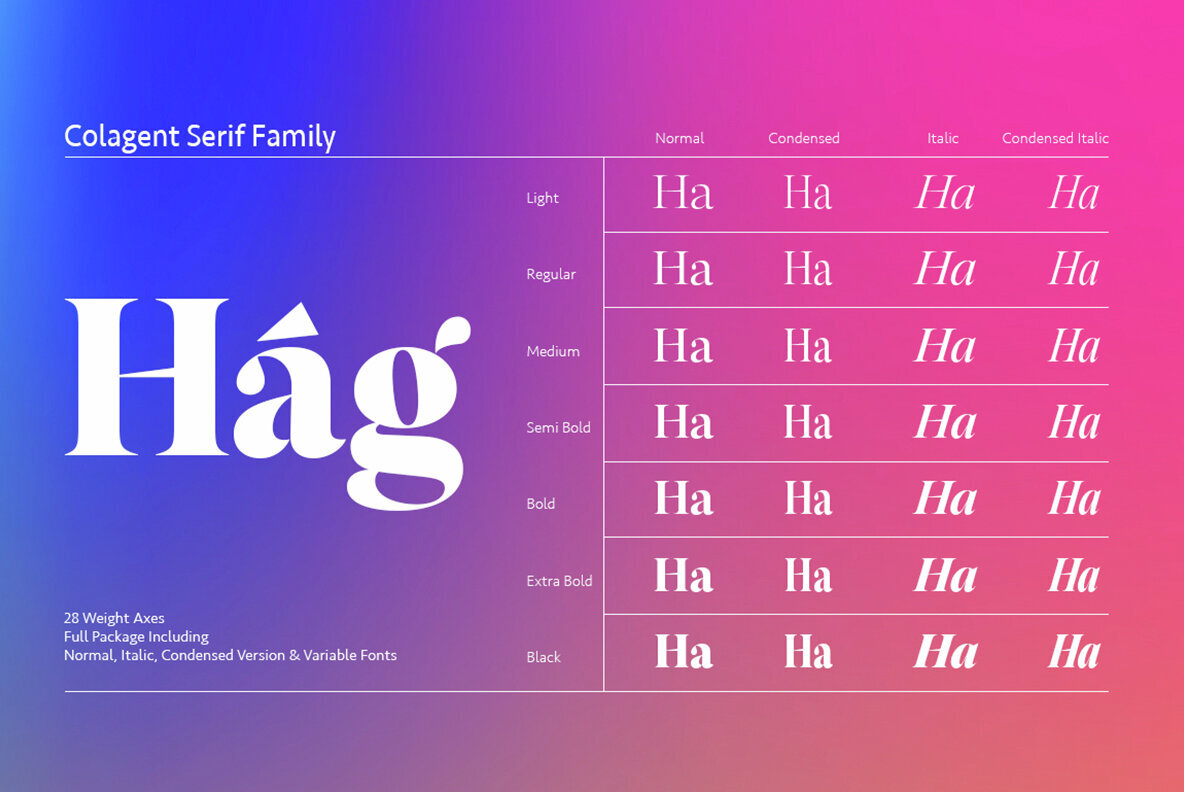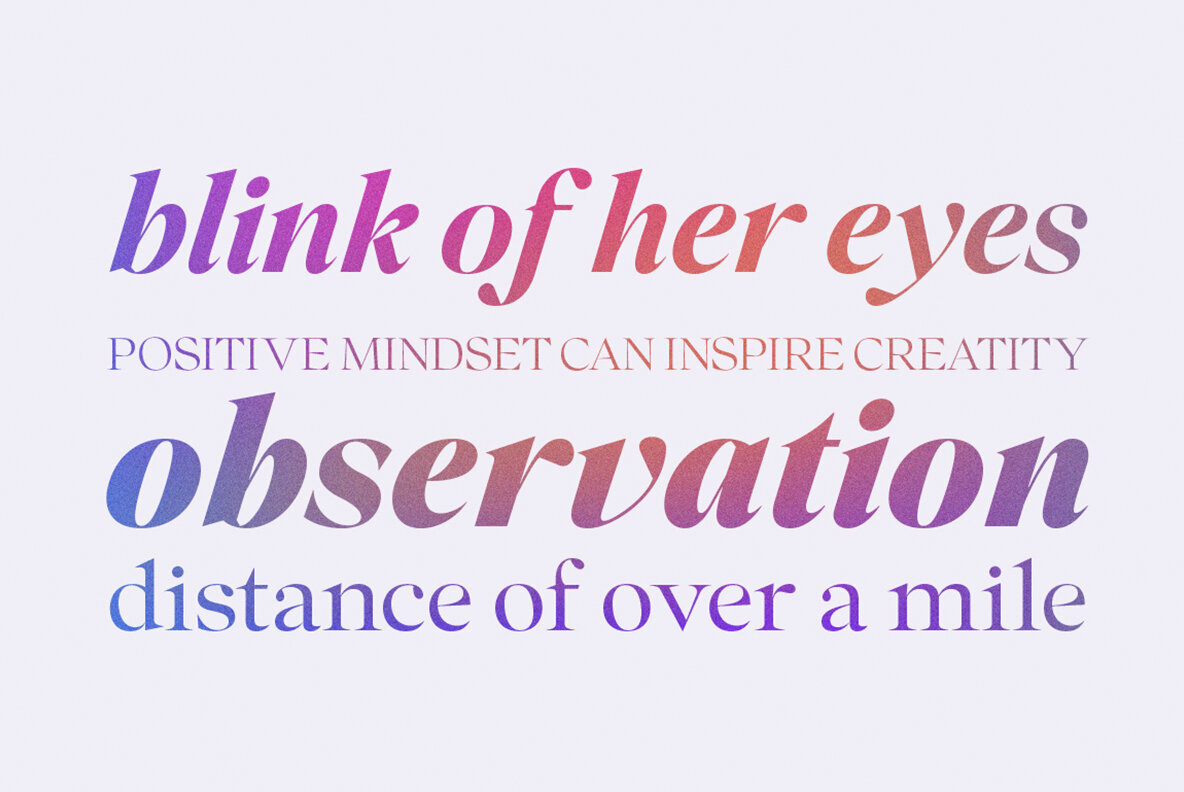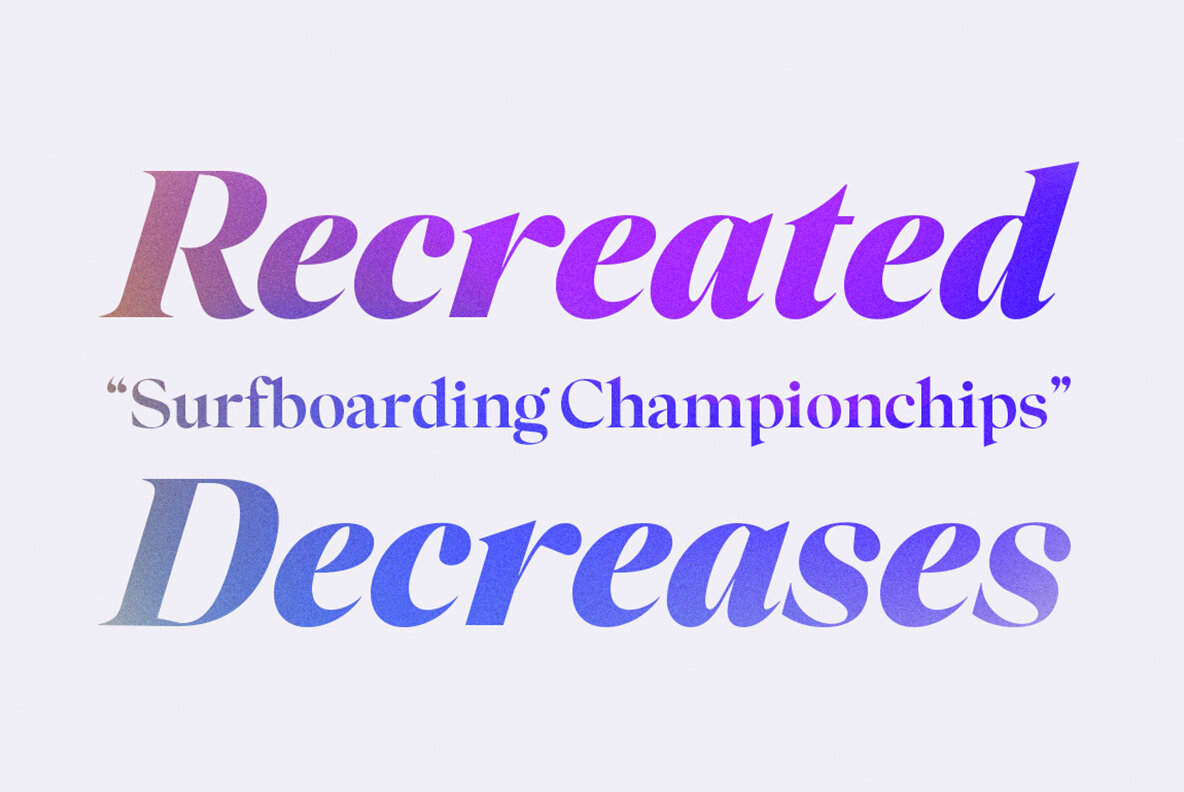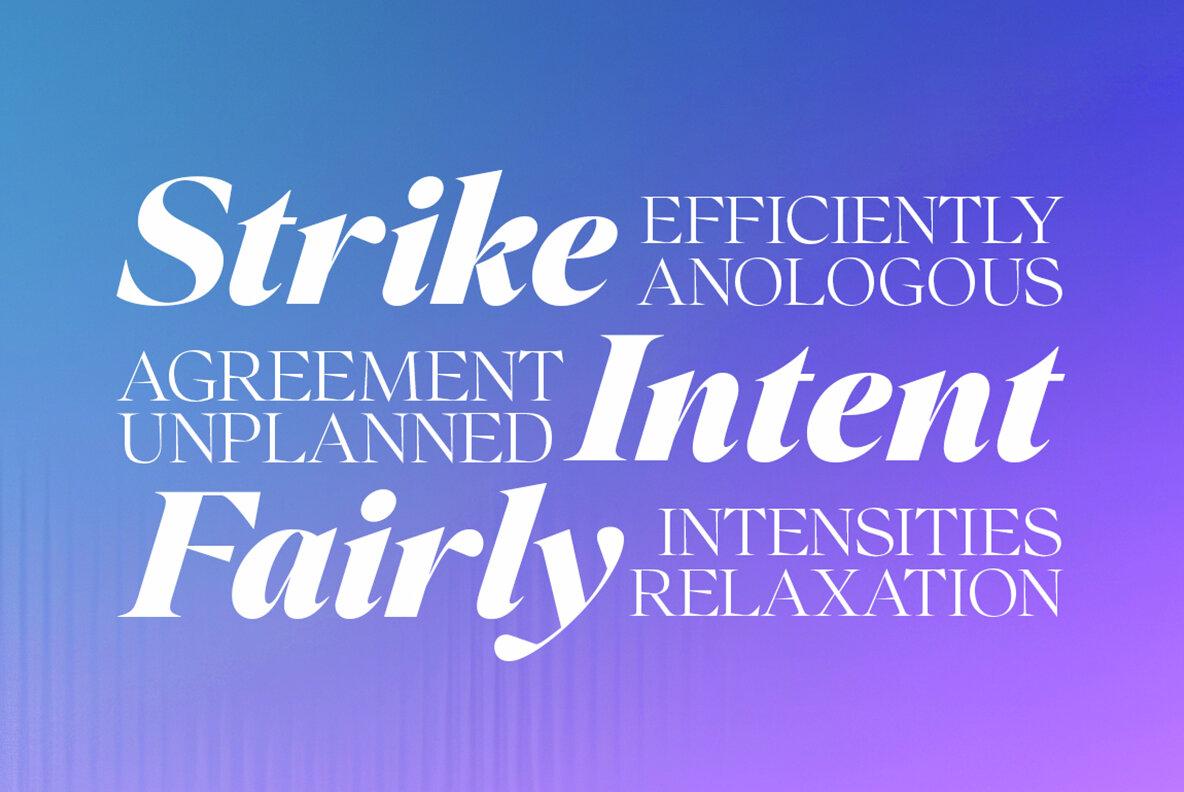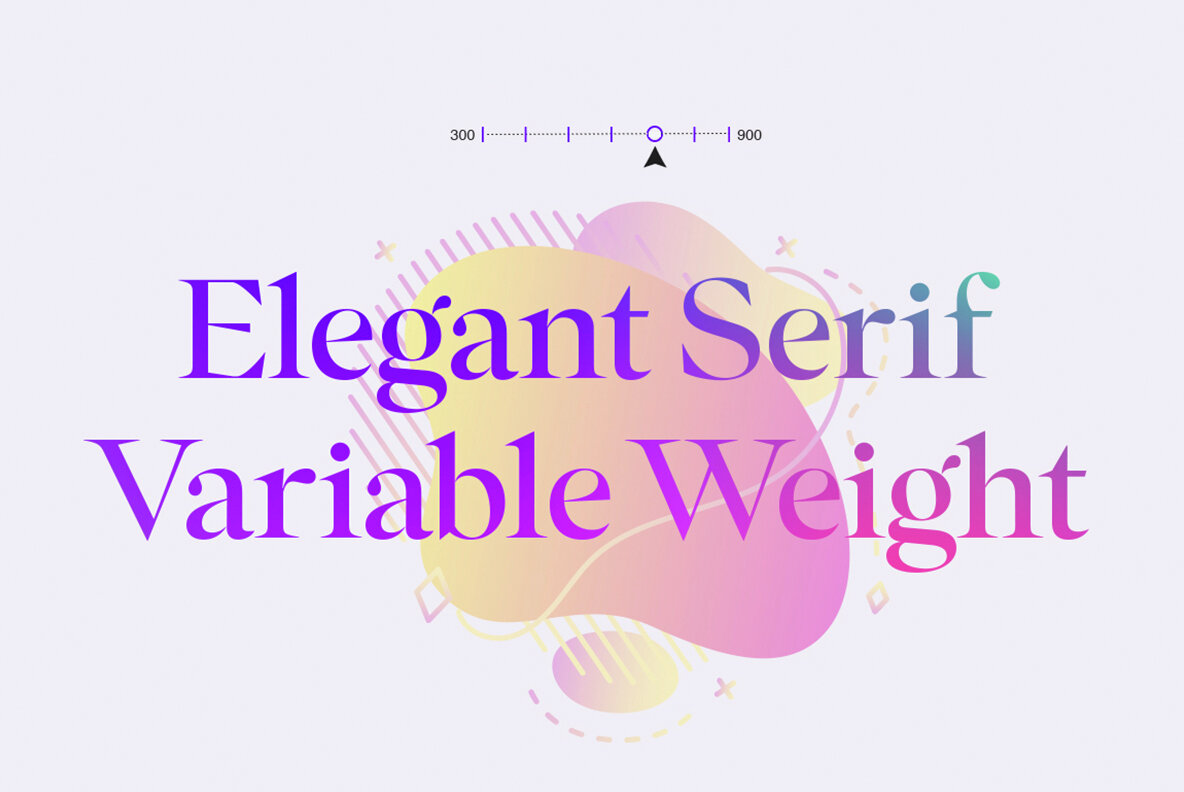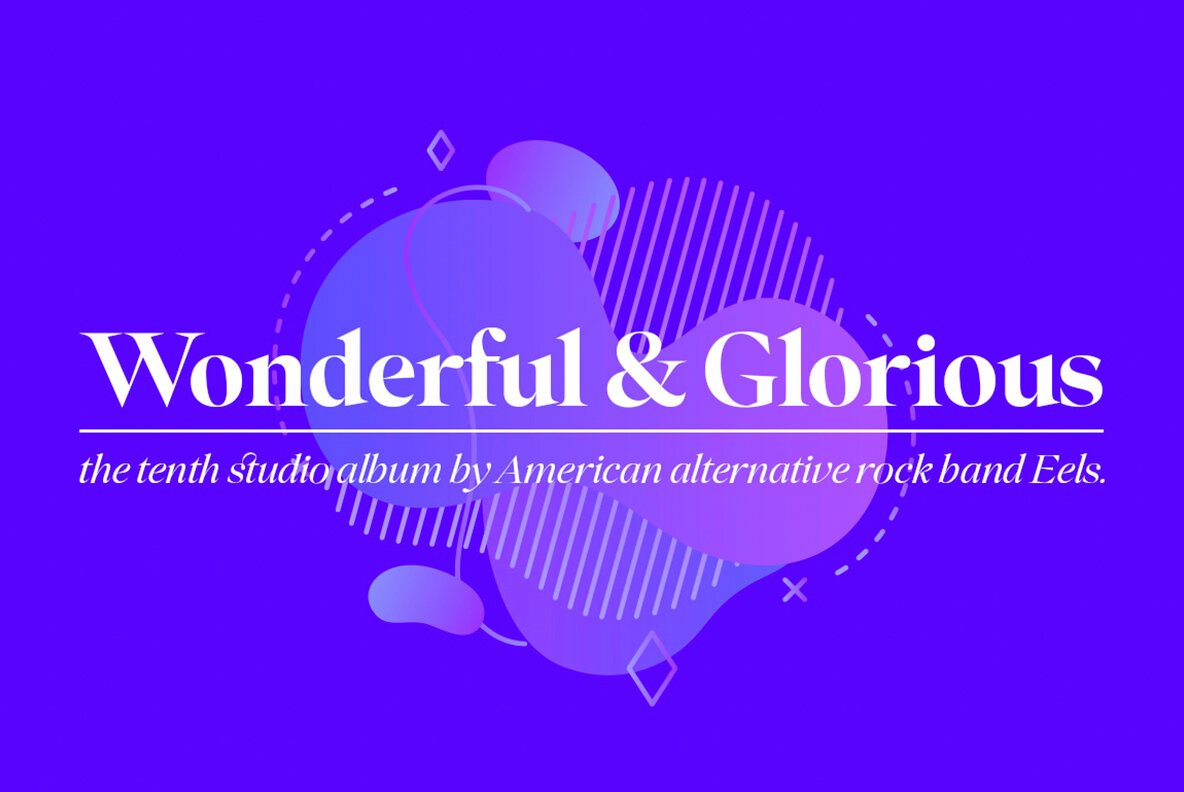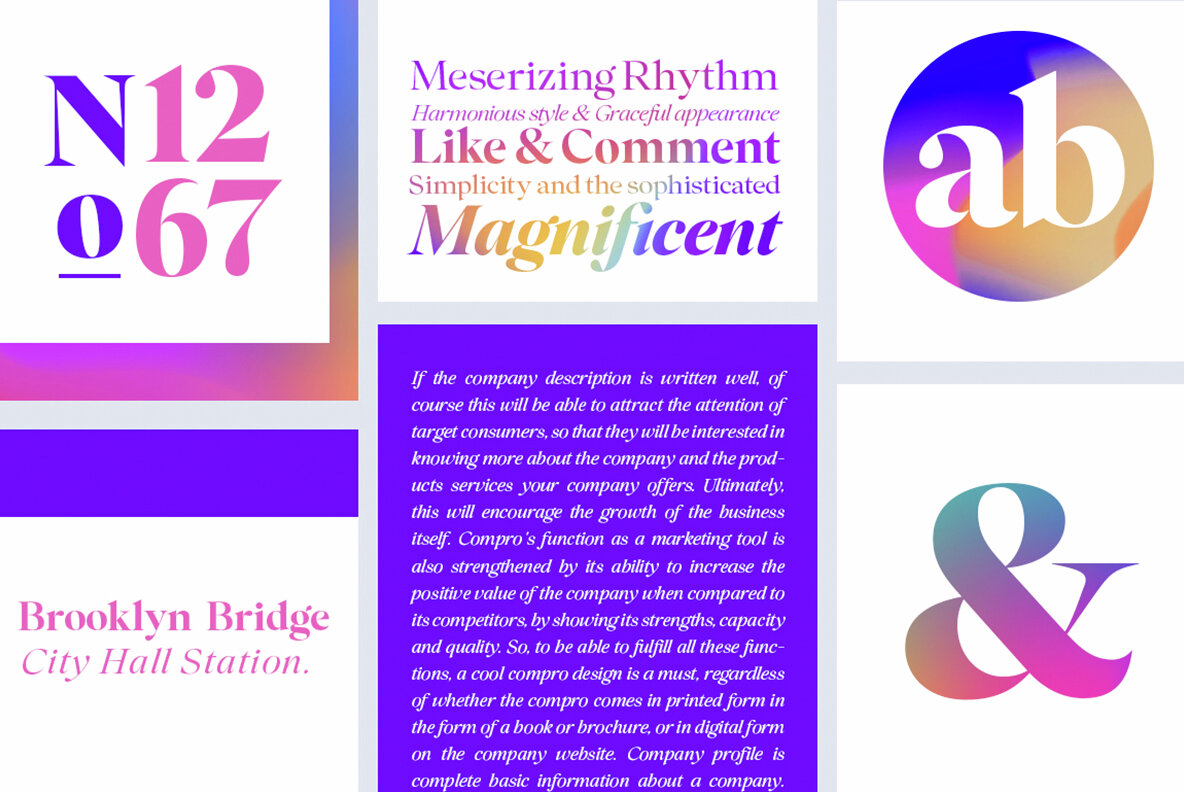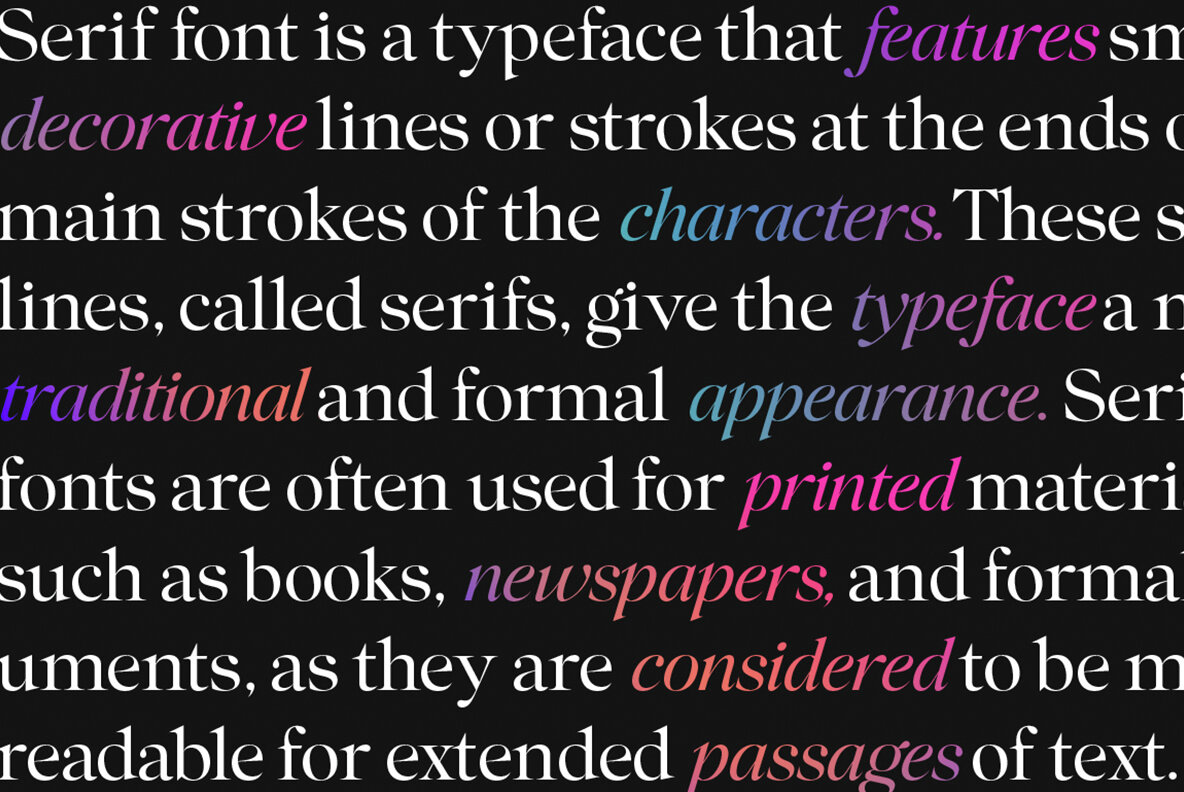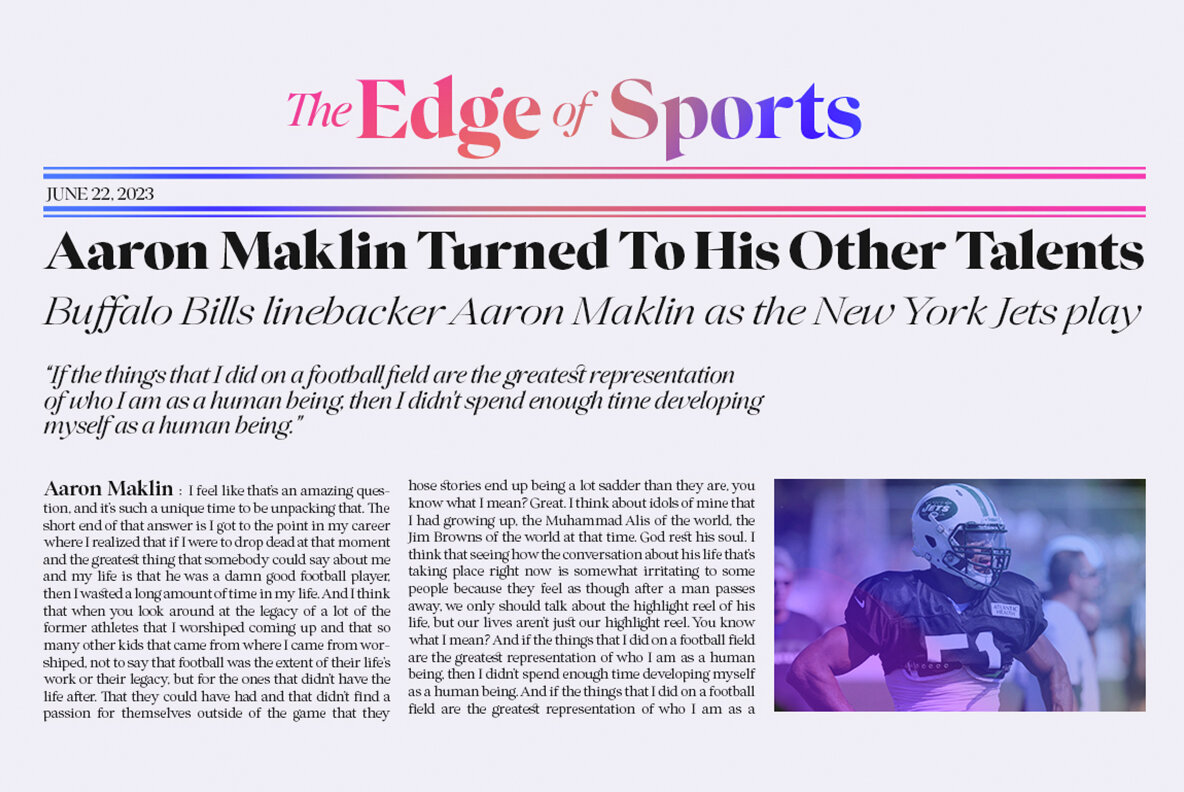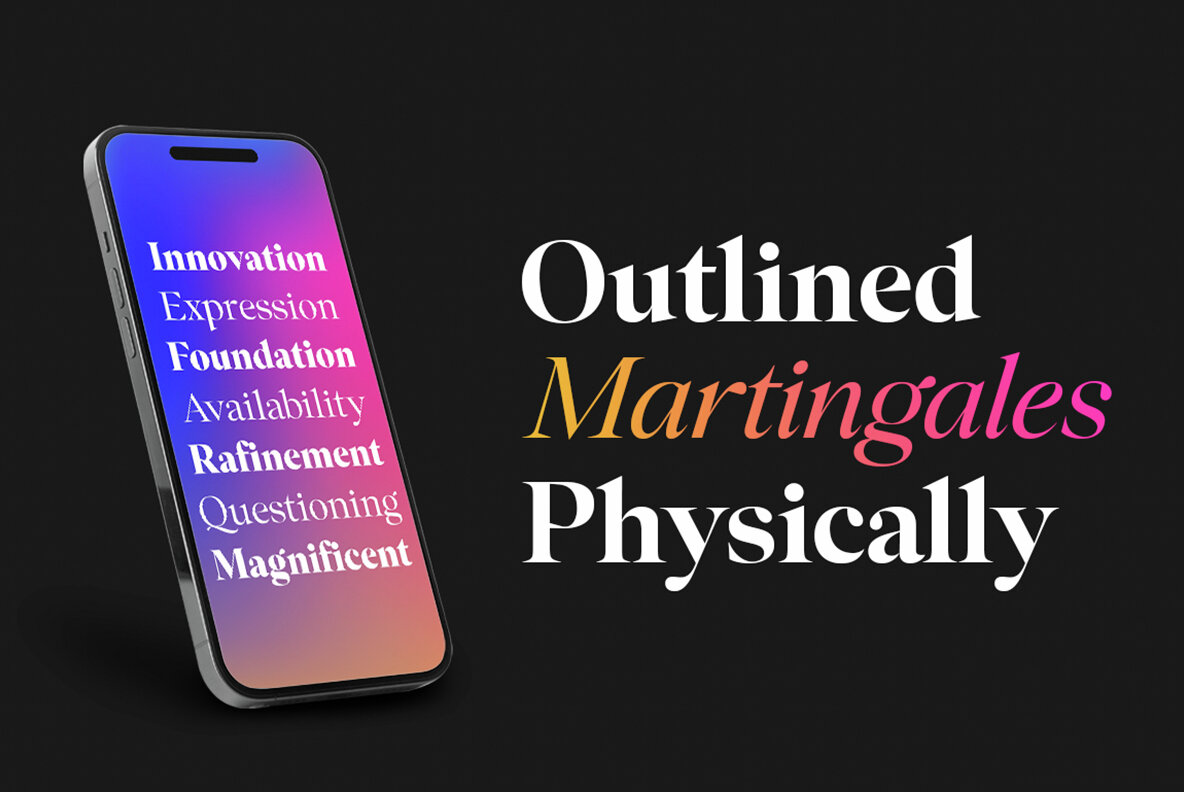
Colagent Font
Colagent is a high-contrast typography inspired by transitional and contemporary typography. The font expands its usability by providing weights ranging from Light to black. Natural curves, swelling and slanting stems grow in characters as the font gets heavier. While the thinner weights have reduced contrast and optical corrections to create a warm and soft appearance. Featuring charming italic letters, exceptional bold weights, and full character support for over 200 Latin-based languages. Colagent excels in display settings such as editorial design, titles, branding projects, logo design, packaging, magazine headings, advertising, short or long text. Colagent also comes with four Variable font versions: Regular, Italic, Condensed, and Condensed Italic to make it easier for designers to explore and perfect beautiful designs, uncovering many visual tones and hidden secrets.